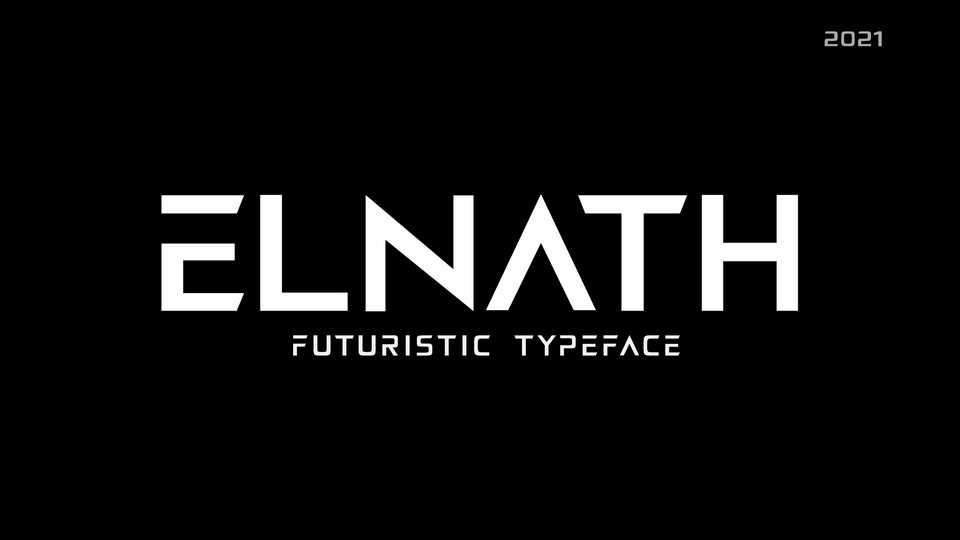
Download Elnath font, a futuristic typeface inspired by science fiction typography. With a minimalistic geometric style Elnath font is best suited for display use, movies, games, posters, logos and any technology related design.